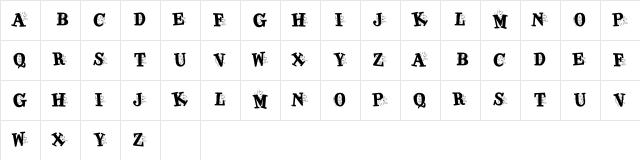
KR Jigsaw Joey Regular Free Font
KR Jigsaw Joey Regular
Design Context for KR Jigsaw Joey
KR Jigsaw Joey is a composed and adaptable typeface that performs quietly and consistently across a wide range of design contexts.